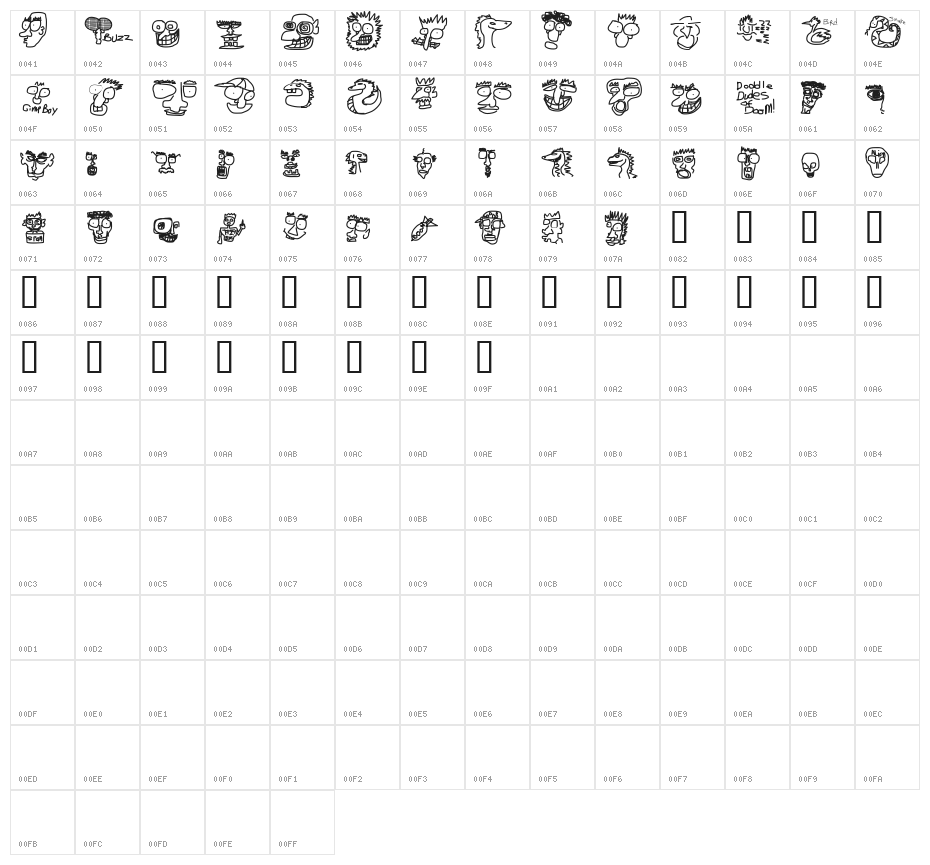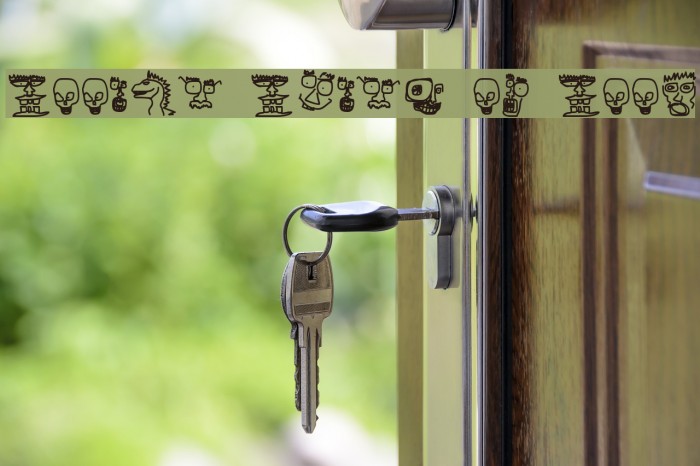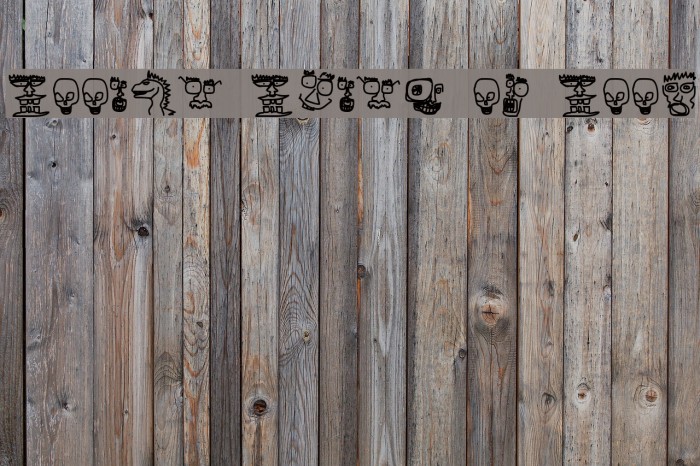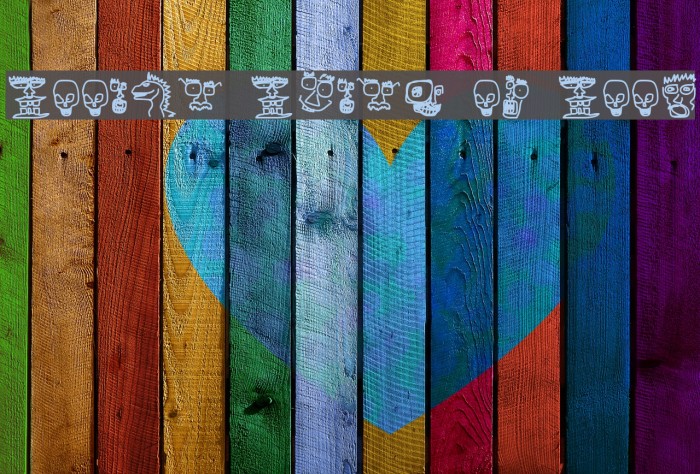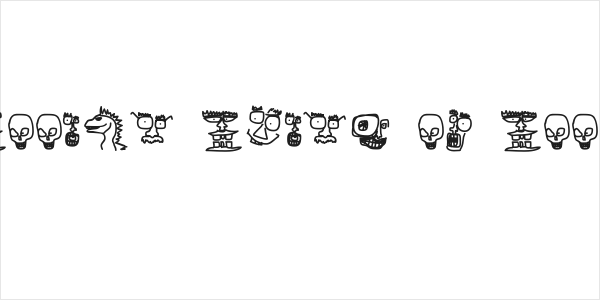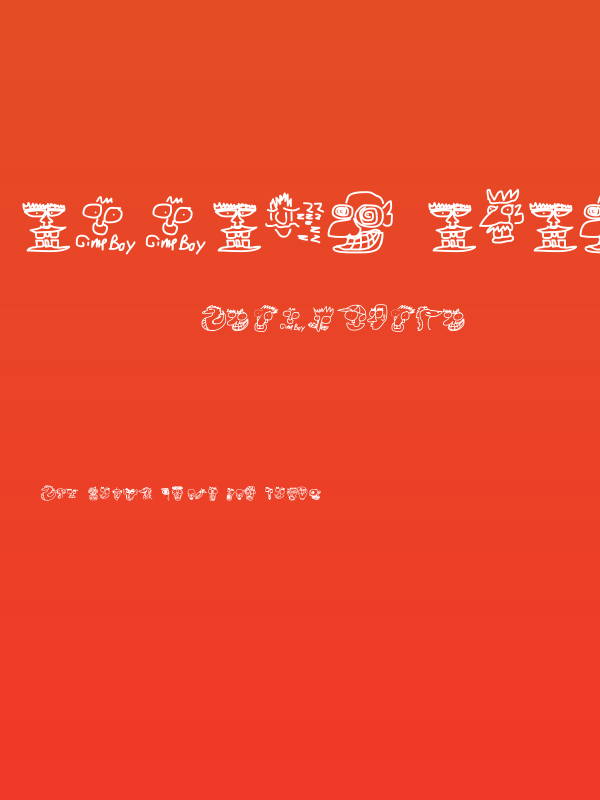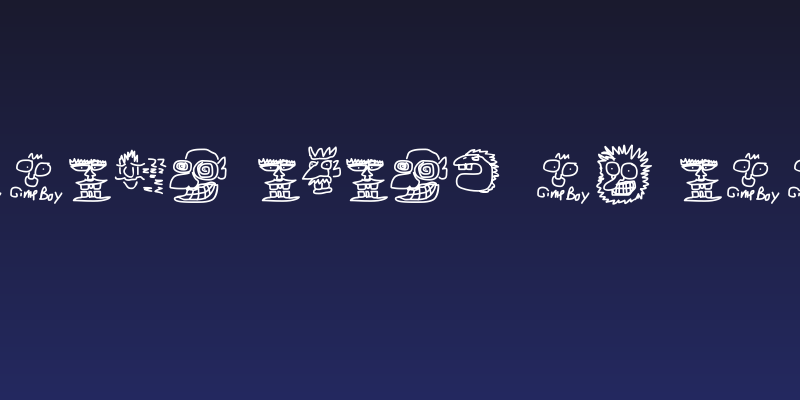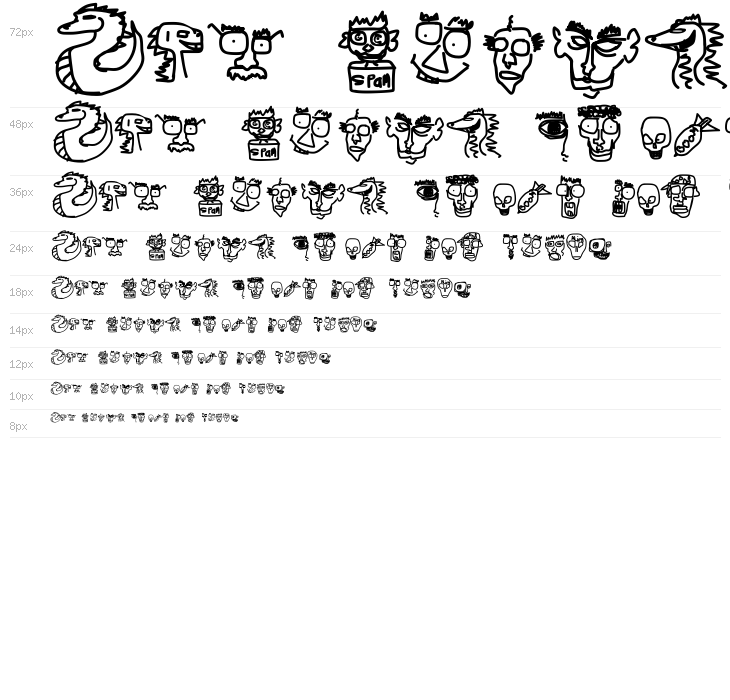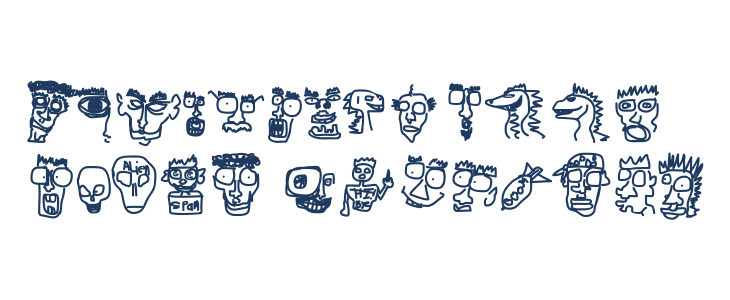
Doodle Dudes of Doom Font
Doodle Dudes of Doom Description
A highly decorative, hand-drawn font featuring quirky cartoon faces and doodles in place of standard alphanumeric characters, giving it a playful and chaotic appearance.
| Overall Style | Decorative, Playful, Whimsical |
| Use Case | Headlines, Posters, Logos, Creative Projects |
| Proposed Projects | Children's book titles, comic strips, playful posters, party invitations, creative branding, zines. |